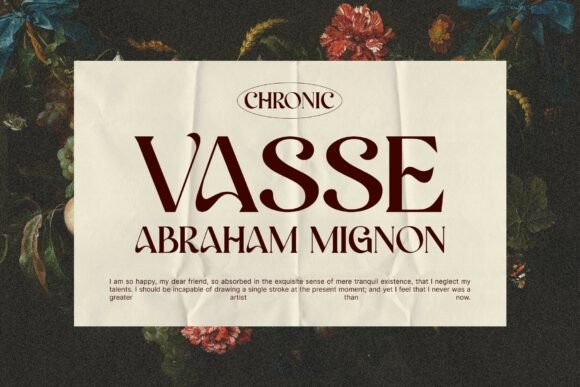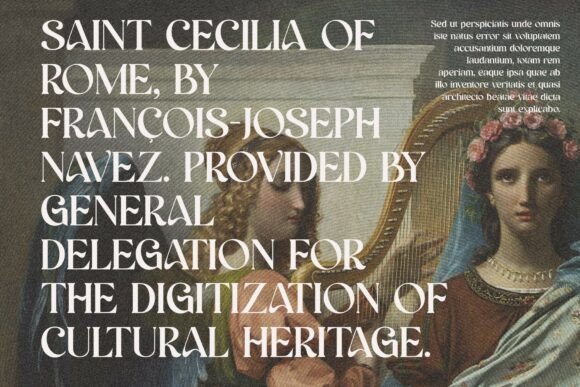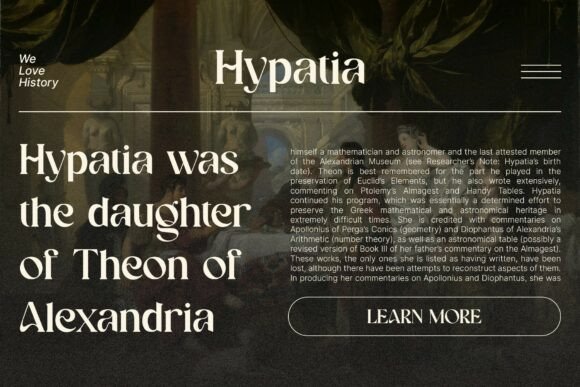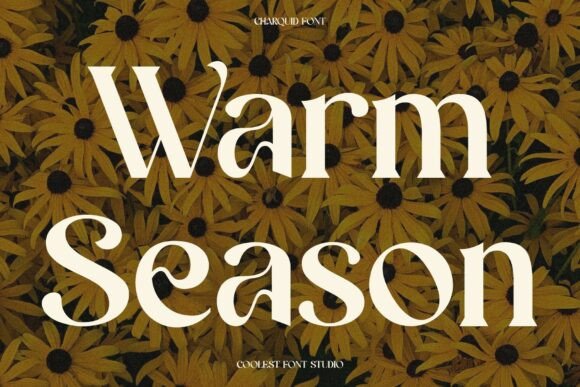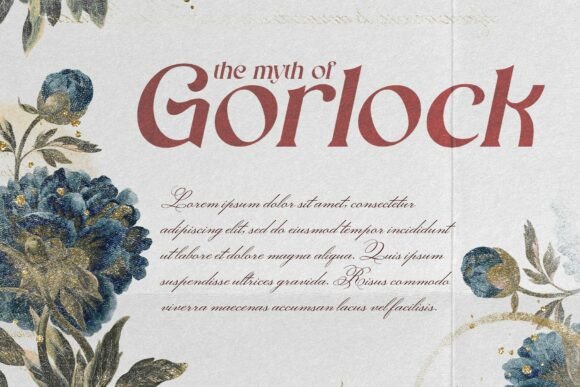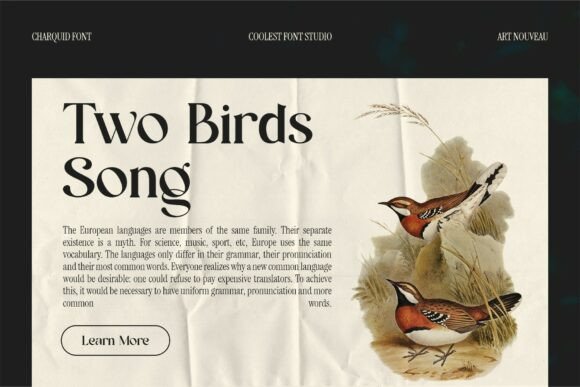
Discover the Timeless Elegance of Charquid Font
Have you ever been in the middle of a design project, and suddenly, you’re stuck on finding the perfect font? I recall a particularly frustrating experience while working on a luxury brand identity project. My client wanted a font that exuded elegance, sophistication, and a touch of vintage charm. After hours of scouring through font libraries, I stumbled upon Charquid Font, and it was love at first sight! In this article, I’ll share my experience with Charquid, its features, and how to make the most of this beautiful typeface.
What Makes Charquid Special?
Charquid is a classic Art Nouveau-inspired serif font that masterfully blends subtle curves with distinct contrasts. This results in a versatile typeface that’s perfect for various design applications, from branding and logo design to invitations, packaging, and editorial creations.
- ✨ Elegant and sophisticated design
- ✅ Includes both regular and italic styles
- ✅ Features an array of uppercase and lowercase characters
- ✅ Comprehensive multilingual support
- ✨ The font’s unique blend of classic and modern elements makes it stand out from other serif fonts.
- ✅ The regular and italic styles provide flexibility in design.
- ✅ The comprehensive multilingual support ensures that Charquid can be used in a wide range of projects.
While Charquid is an exceptional font, there are a few minor quirks to be aware of:
- ⚠️ Some users might find the font’s Art Nouveau inspiration a bit too ornate for certain projects.
- 🤔 The font’s elegance might not be suitable for very casual or playful designs.
The Story Behind Charquid
Charquid was inspired by the Art Nouveau movement, which emphasized natural forms and flowing lines. The font’s creator aimed to capture the essence of this style, while also making it versatile and practical for modern designers. The result is a font that’s both elegant and sophisticated, perfect for a wide range of design applications.
Q: Can I use Charquid Font for branding and logo design?
A: Absolutely! Charquid’s elegant and sophisticated design makes it an excellent choice for branding and logo design.
Q: Is Charquid Font suitable for body text?
A: While Charquid is an elegant font, it’s better suited for headings and titles. For body text, consider using a more readable font.
Q: Can I use Charquid Font for multilingual projects?
A: Yes, Charquid Font includes comprehensive multilingual support, making it suitable for a wide range of languages and scripts.